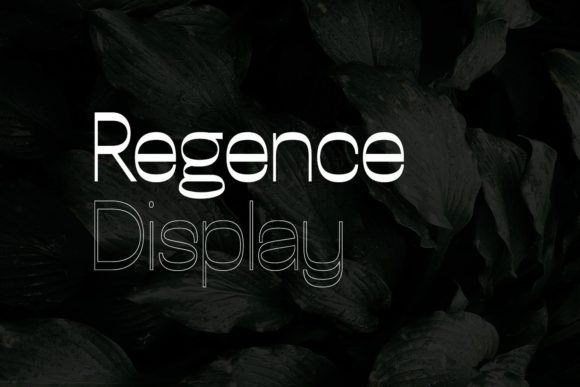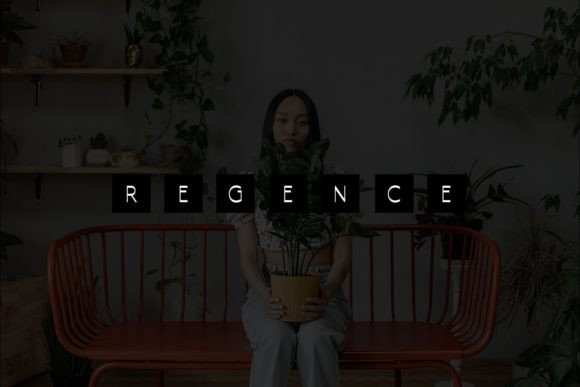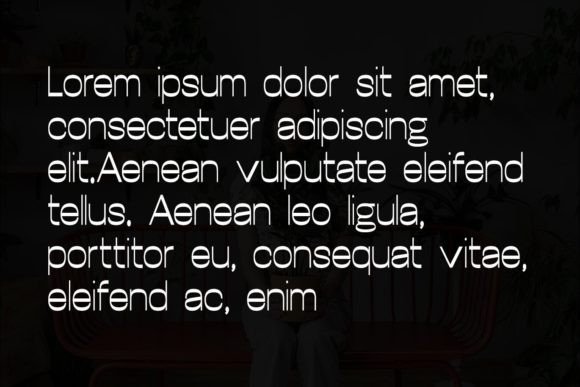
Introduction to Regence Font
As a designer, you’ve probably experienced that moment of excitement when you stumble upon the perfect font for your creative project. The one that elevates your design from good to great, making it stand out from the crowd. For me, that moment came when I discovered the Regence Font. Its stunning display style and high-quality design immediately caught my attention, and I knew I had to share it with the world.
Whether you’re working on a logo, brochure, or social media graphics, the Regence Font is a valuable design resource that can enhance any creation. With its transparent background and free download option, it’s an ideal choice for designers who want to add a touch of sophistication to their work without breaking the bank.
As a free download, the Regence Font is a game-changer for designers who are looking for high-quality fonts to elevate their designs. Its impressive display style and versatility make it a must-have for any creative project, and I’m excited to share it with you.
Key Features of Regence Font
- High-quality design resource ideal for creative projects, offering a unique aesthetic.
- Transparent background, allowing for seamless integration into designs.
- Available in a range of sizes, making it suitable for various design applications.
- Designed with precision, ensuring crisp and clear rendering at high resolutions (up to 300 DPI).
- Unique characteristics include elegant lines and subtle flourishes, adding a touch of sophistication to designs.
- Perfect for use in a variety of creative projects, including branding, typography, and graphic design.
Honest Review: Regence Font
I recently had the chance to work with the Regence Font for a creative project, and I must say it’s been a game-changer. This high-quality font is a fantastic addition to any designer’s arsenal, and I’m excited to share my honest thoughts on it.
- ✨ Unique and elegant design that’s perfect for luxury brands and high-end creative projects
- ✨ Excellent legibility, even at small font sizes
- ⚠️ Limited character set, which may not be suitable for extended text blocks
- ⚠️ No bold or italic variations available, which can limit its versatility
Overall, I’m thoroughly impressed with the Regence Font. Its sleek design and high-quality feel make it a fantastic choice for any creative project that requires a touch of sophistication. With its transparent background and clean lines, it’s easy to see why this font is a favorite among designers. While it may have some limitations, I think the Regence Font is well worth the download – especially considering it’s available for free!
How to Use Regence Font
The Regence Font is a high-quality design resource ideal for creative projects that demand attention to detail. This free download features a transparent background, making it easy to integrate into various design applications.
Tips for Getting the Most Out of Regence Font
To get the most out of Regence Font, experiment with different font sizes, colors, and combinations to create unique and visually appealing designs.
Regence Font is ideal for:
Wedding invitations and stationery
Branding and logo design
Business cards and letterheads
Graphic design projects that require a touch of elegance